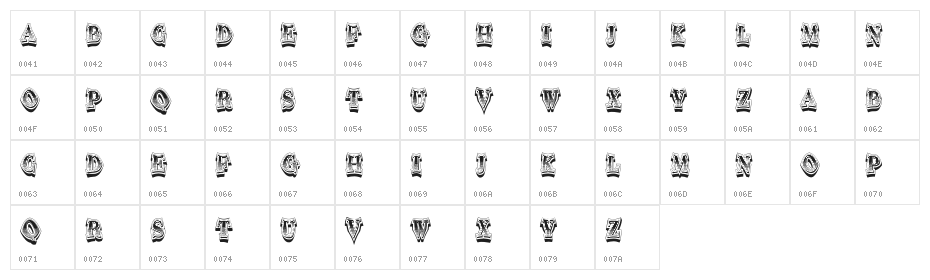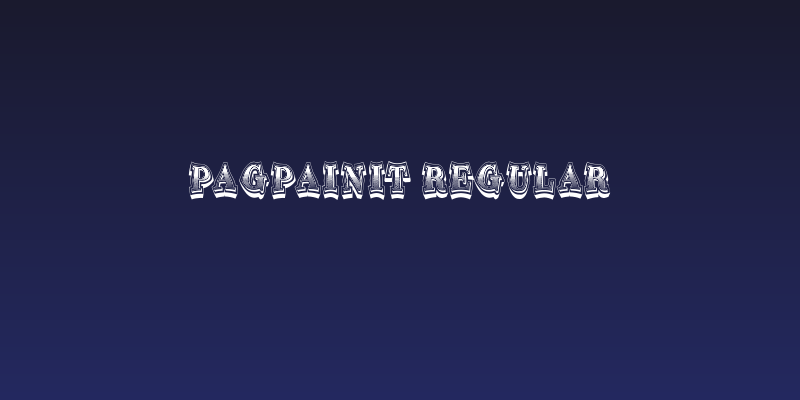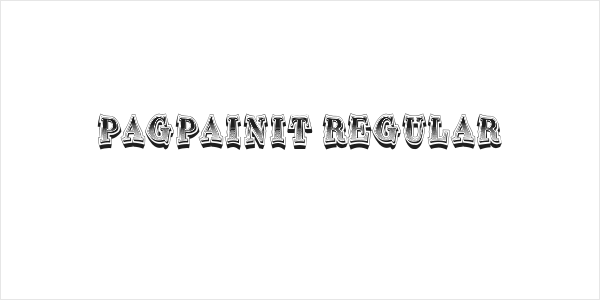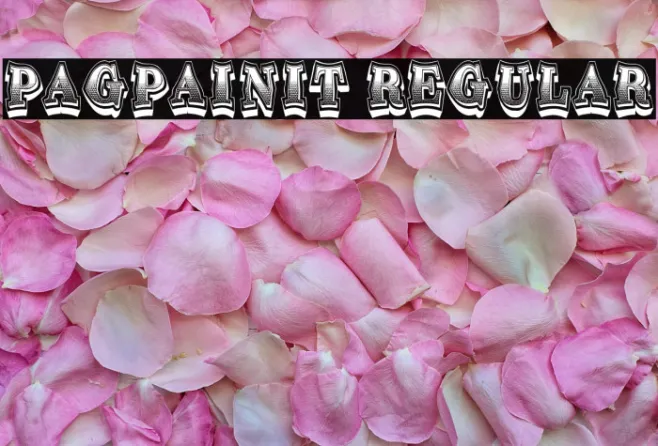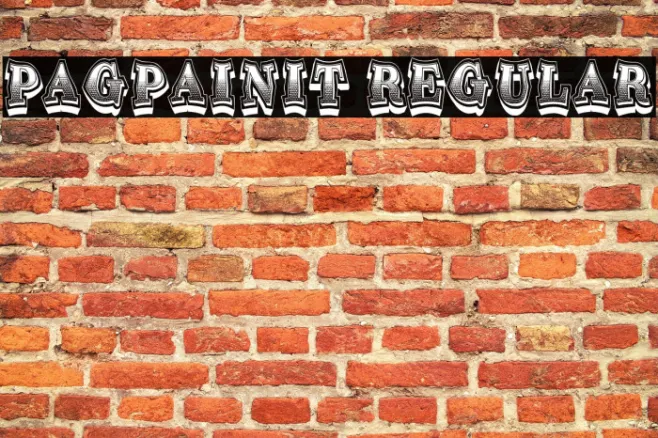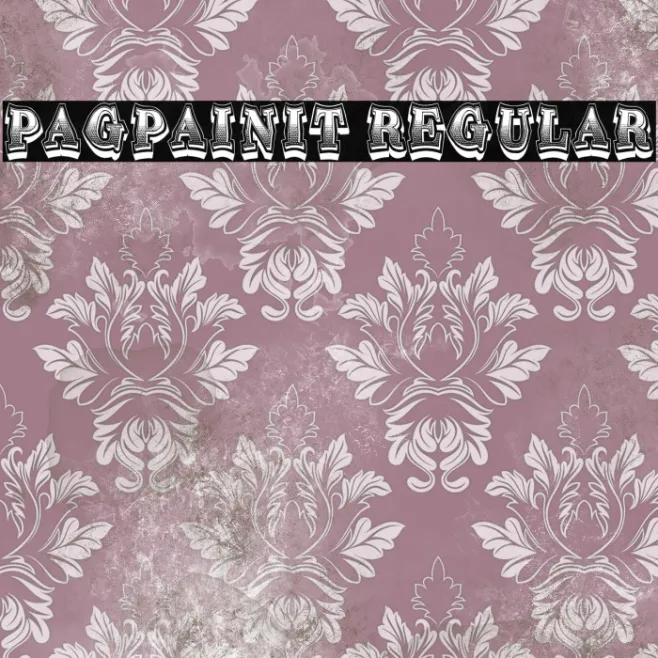
Pagpainit Regular Font
Pagpainit Regular Description
This font features a bold, decorative style with intricate detailing inside each character. The letters have a three-dimensional appearance, enhanced by shadowing and inner patterns that add depth and texture. The overall design is reminiscent of vintage circus or carnival posters, with a playful yet sophisticated flair. The uppercase letters are particularly striking, with their bold outlines and detailed interiors, making them ideal for attention-grabbing headlines or titles. The font's unique style makes it suitable for projects that require a touch of nostalgia or a bold visual statement.